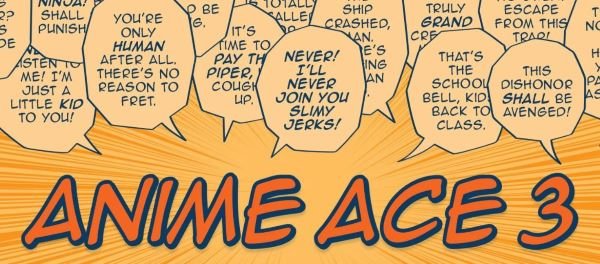
Anime Ace Font by Blambot is a comic-style typeface built specifically for the visual demands of manga and anime-inspired lettering. Its thick, confident strokes and dynamic construction give speech bubbles and panel text the kind of punchy readability that makes stories feel immediate and alive.
Fan art, original comics, anime-themed posters, and graphic novel layouts will all find this typeface to be an exceptionally reliable and authentic-feeling choice. Free for personal use, with a commercial license available for purchase.
Style: Comic, Bold, Display, Manga